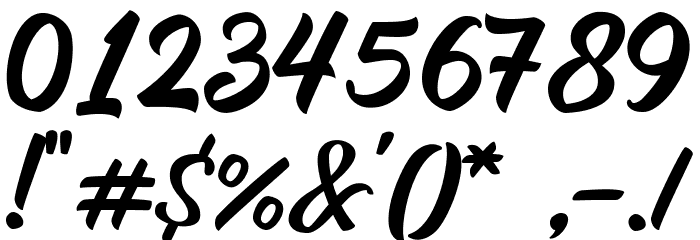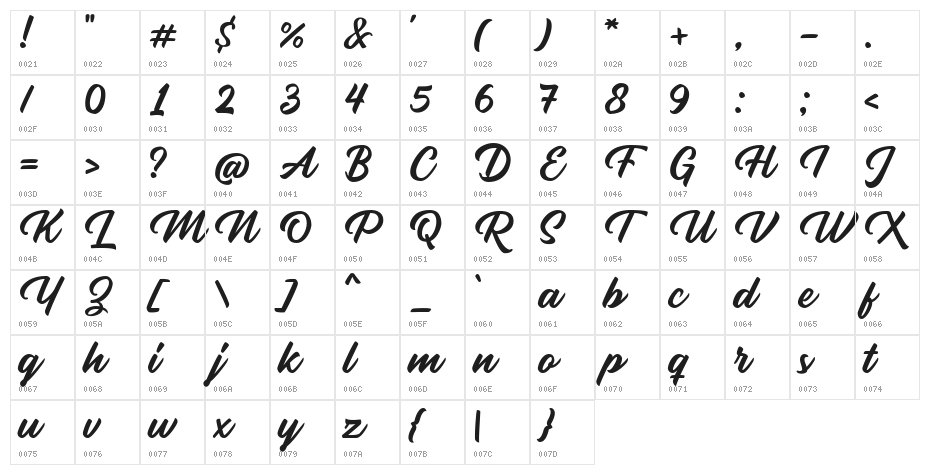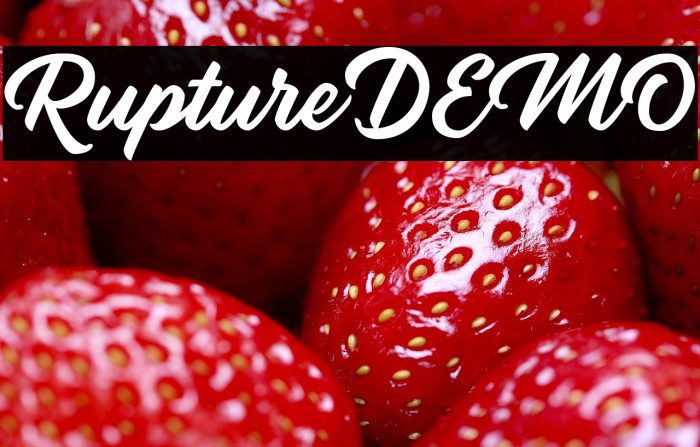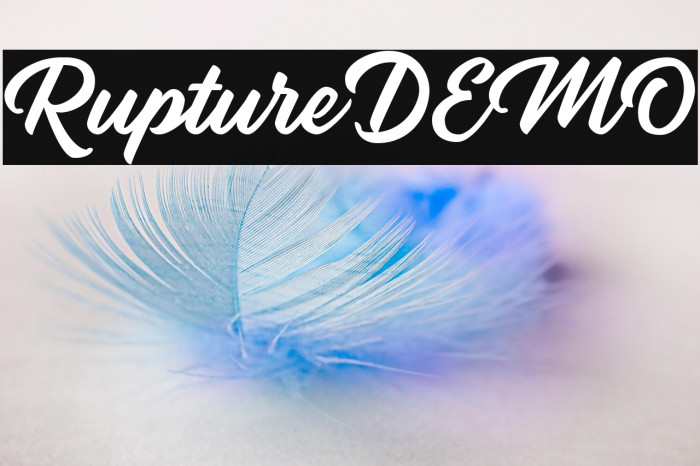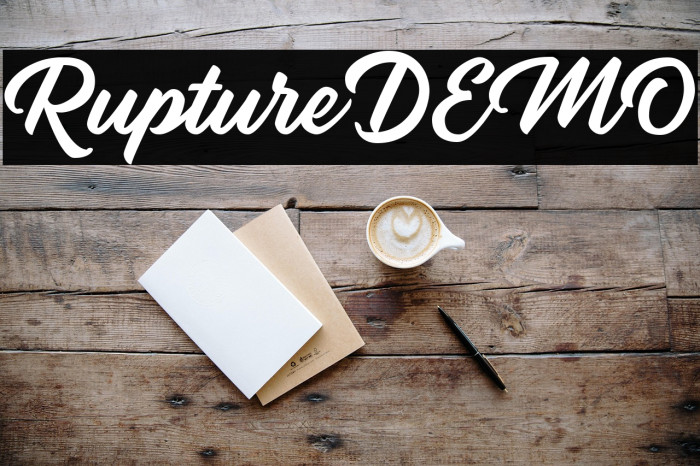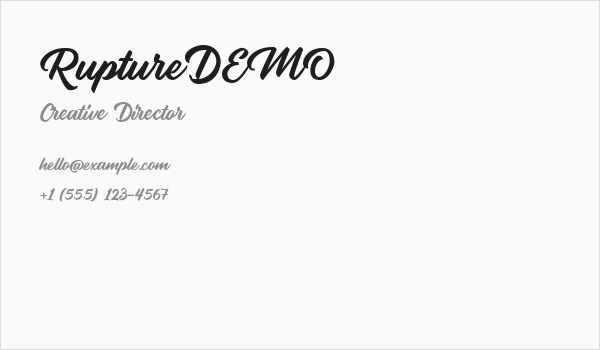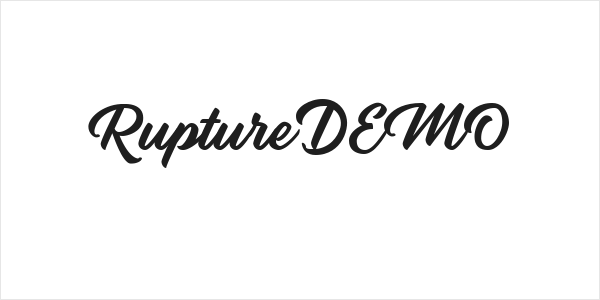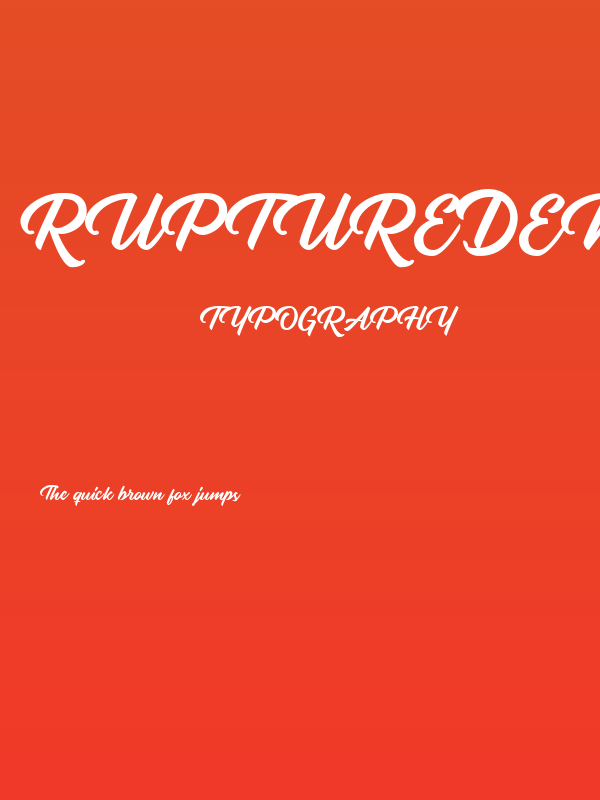
RuptureDEMO Font
RuptureDEMO Description
This font features a bold, cursive style with a smooth, flowing appearance. The uppercase letters are elegantly slanted, giving a sense of motion and fluidity. The lowercase letters maintain a consistent thickness, enhancing readability while preserving the script's artistic flair. Numbers are bold and slightly italicized, complementing the overall design. Special characters are crafted with the same attention to detail, ensuring they blend seamlessly with the rest of the typeface. The font's dynamic and expressive nature makes it ideal for creative projects.